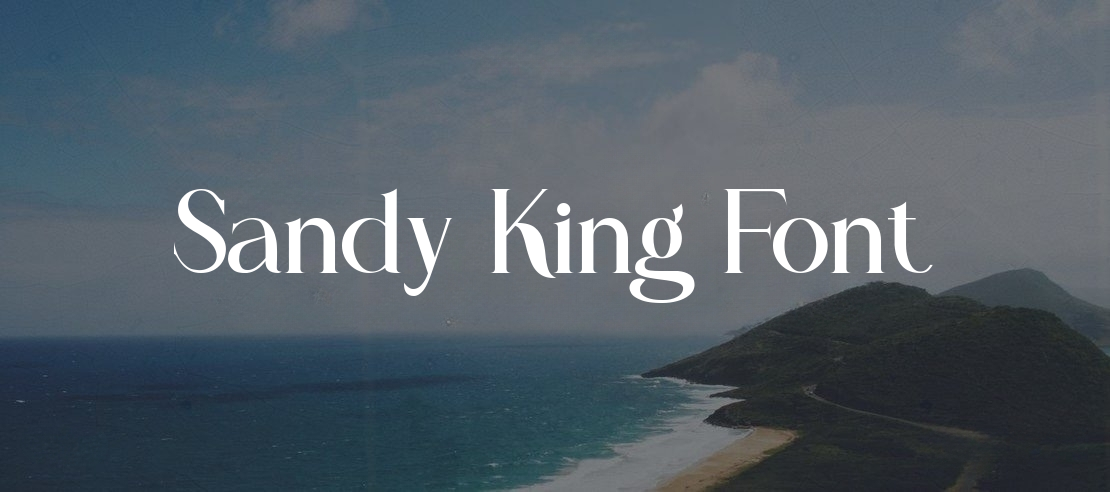
In this article, I shall present an interesting and amazing typeface. Sandy King Font is an awesome and stunning typeface. It is a serif typeface. An Indonesian typeface designer created this typeface. It is a modern typeface.
Sandy King typeface is available in two different styles Regular and Bold. This typeface is suitable for magazine covers, banners, book titles, websites, presentations, invitation cards, fashion designs, shop names, logos, headings, product packaging, and posters.
Sandy King typeface has a complete set of characters including upper and lower case letters, numbers, symbols, and punctuation marks. This typeface is identical to the minion font. This typeface also supports many different languages.
This stunning and attractive typeface is created by an Indonesian typeface designer Virgiawan Listanto for the foundry String Labs Creative Studio in 2021.
This font style is designed with a unique and regular style. This single attractive style is a mixture of multiple characteristics, containing upper- and lower-case letters, numbers, punctuations, symbols, special characters, glyphs, and different language support.
| Name | Sandy King Font |
| Style | Serif |
| Designer | Virgiawan Listanto |
| Foundry | String Labs Creative Studio |
No, it is not a bad typeface. It is a readable and legible typeface. You can use this typeface in titles, covers, and headings.
This typeface is similar to the Noto Serif Font.